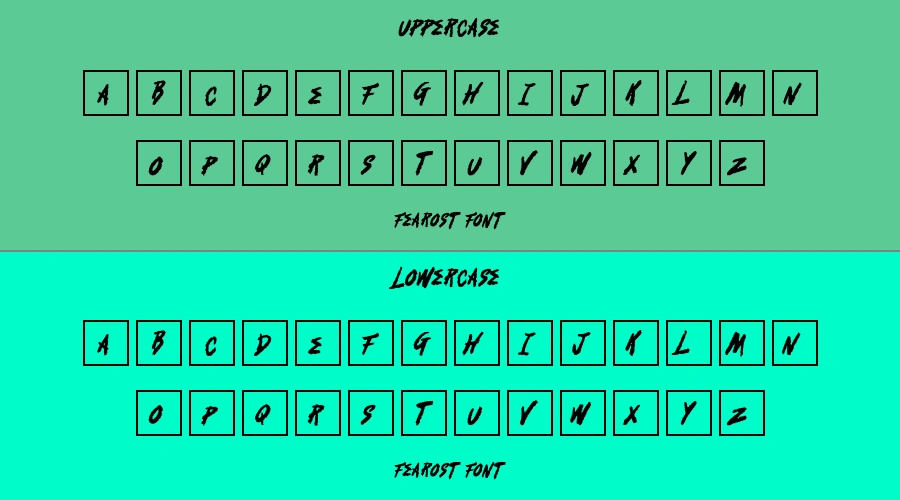
About Fearost Font
When typographic excellence matters most, Fearost Font delivers through its thoughtful blend of distinctive details and refinement. Specially crafted for advertising headers, it offers the reliability and industrial strength required for sophisticated design work. Every detail serves a purpose.
The character set showcases thoughtful details like artistic freedom alongside functional case-sensitive forms. This proves especially valuable in identification tags, where detail preservation directly influences results. Particular attention was paid to proportion and brand personality during development.